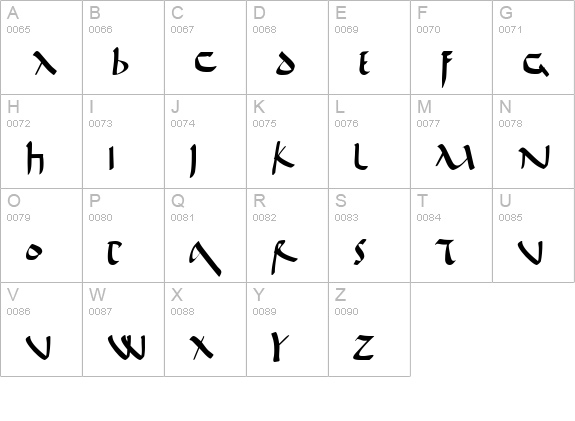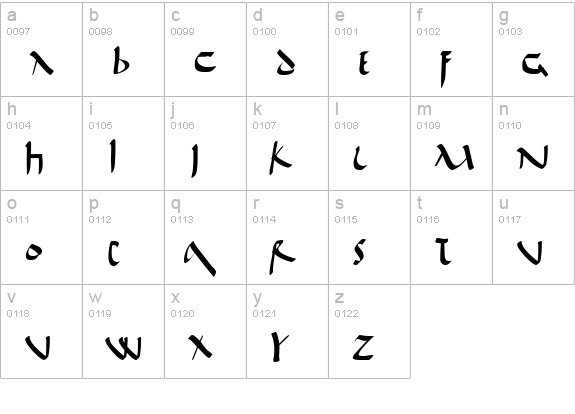
De Bellis Font Details
De Bellis font is a stunning display typeface that exudes elegance and sophistication. With its graceful curves and intricate details, this font is perfect for adding a touch of luxury to any design project. Its timeless look makes it versatile for a wide range of applications, from branding to editorial design. What makes De Bellis font even more appealing is that it is available for free! You can easily download this exquisite font at FontsMarket.com and start using it in your creative projects right away. Whether you're designing a logo, creating invitations, or crafting a poster, De Bellis font is sure to make a lasting impression with its unique style and character. Don't miss out on the opportunity to enhance your designs with this beautiful free font.